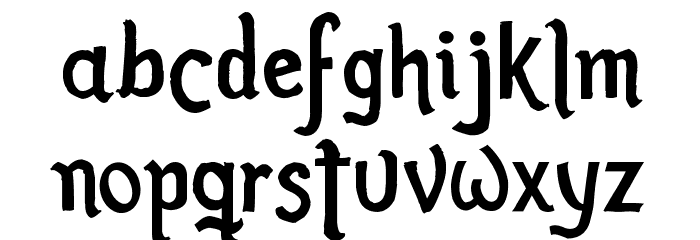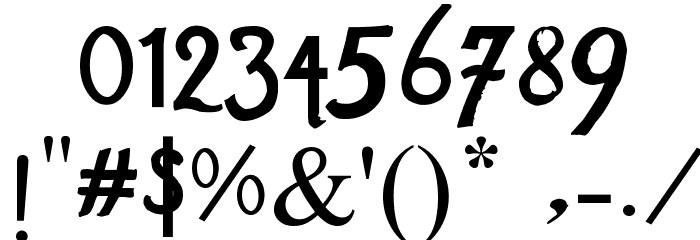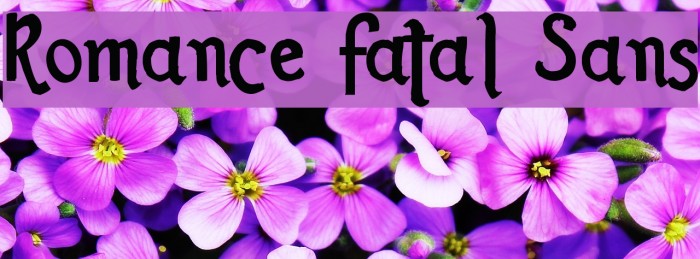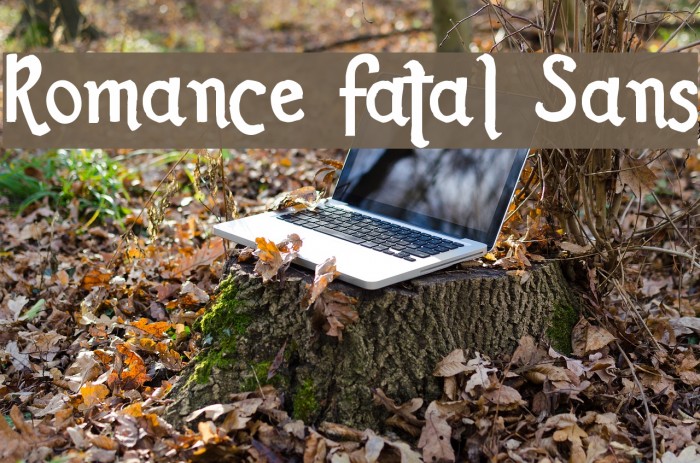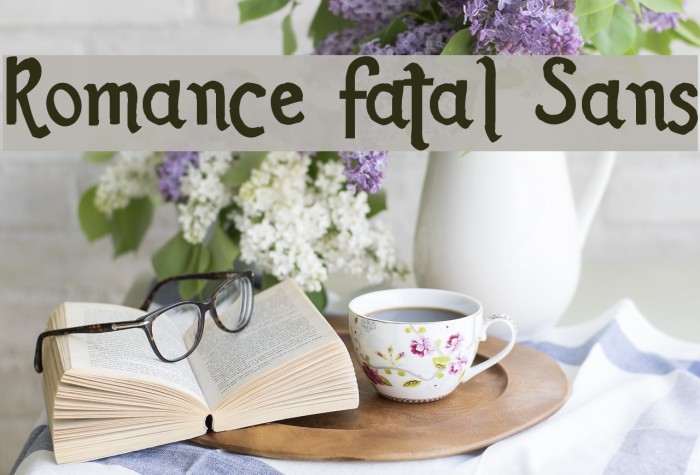
Romance Fatal Sans Font
This font features a bold and expressive style with a hand-drawn appearance, characterized by its uneven strokes and playful curves. The uppercase letters are tall and slightly narrow, with distinctive serifs that add a touch of elegance. The lowercase letters maintain a consistent flow, with some characters exhibiting unique flourishes that enhance the font's whimsical nature. Numbers are bold and clear, ensuring readability. The special characters are creatively designed, matching the overall aesthetic of the font. This font's dynamic and artistic style makes it suitable for projects that require a personal and creative touch.
A bold, hand-drawn font with expressive strokes and playful curves.
- Font: Romance Fatal Sans